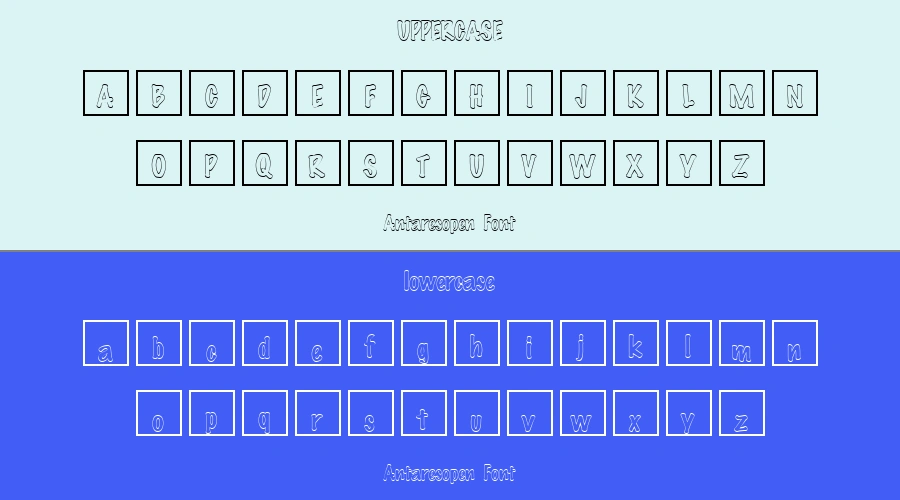
About Antaresopen Font
Designed with precision, Antaresopen Font merges humanist proportions with accuracy in every character. This versatility makes it particularly effective for merchandise graphics, where personality and cultural relevance directly impact communication quality. Each letterform demonstrates meticulous craftsmanship.
Technical excellence shines through elements like dynamic forms and decorative sets, enhancing typographic versatility. In editorial spreads settings, Antaresopen Font proves its worth through superior body text reading. The thoughtful execution of cap height ratio and historical references ensures professional results.